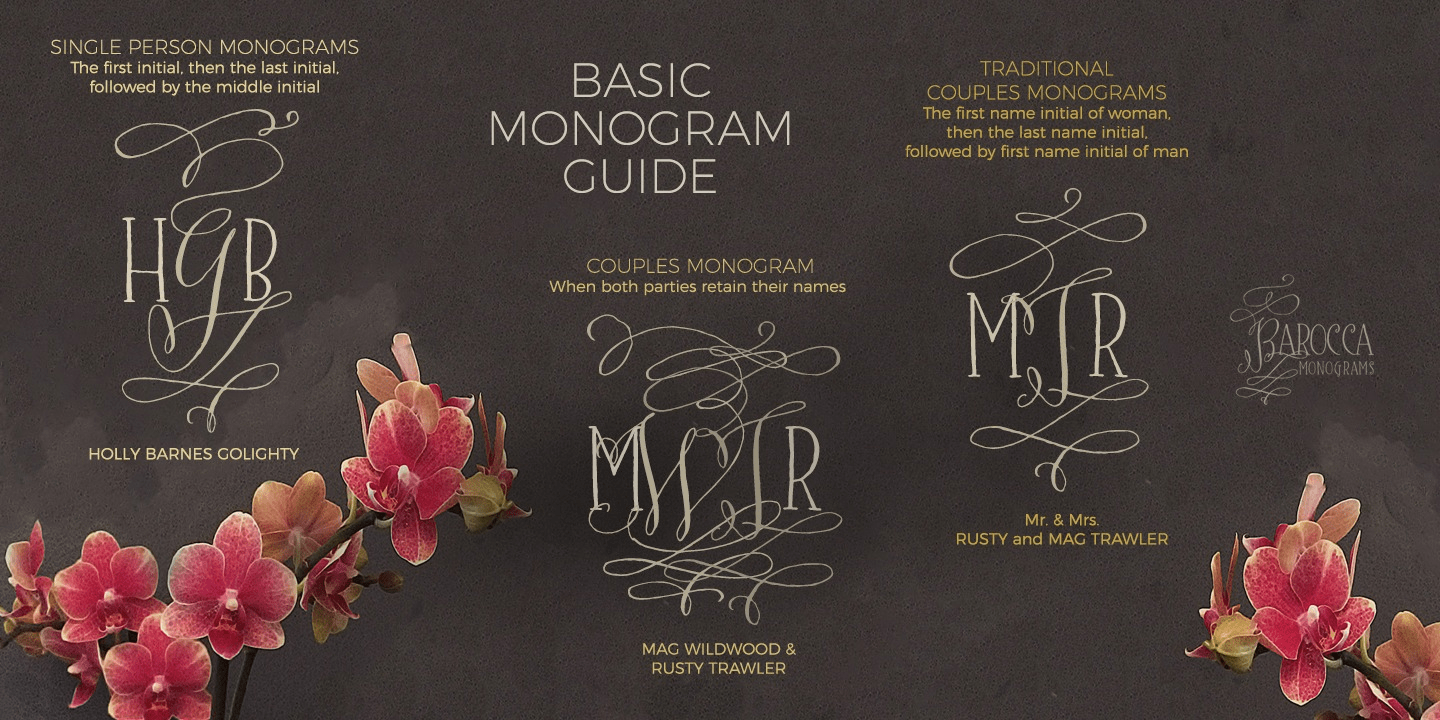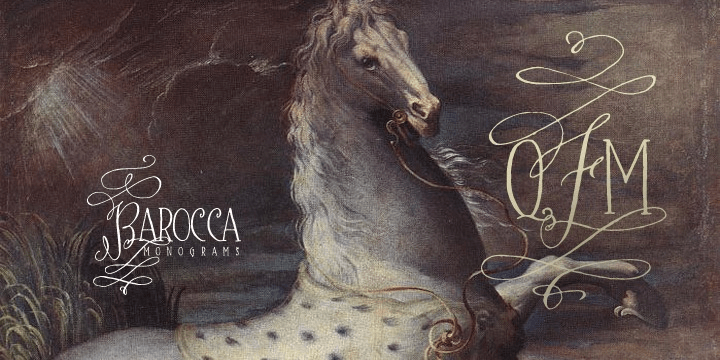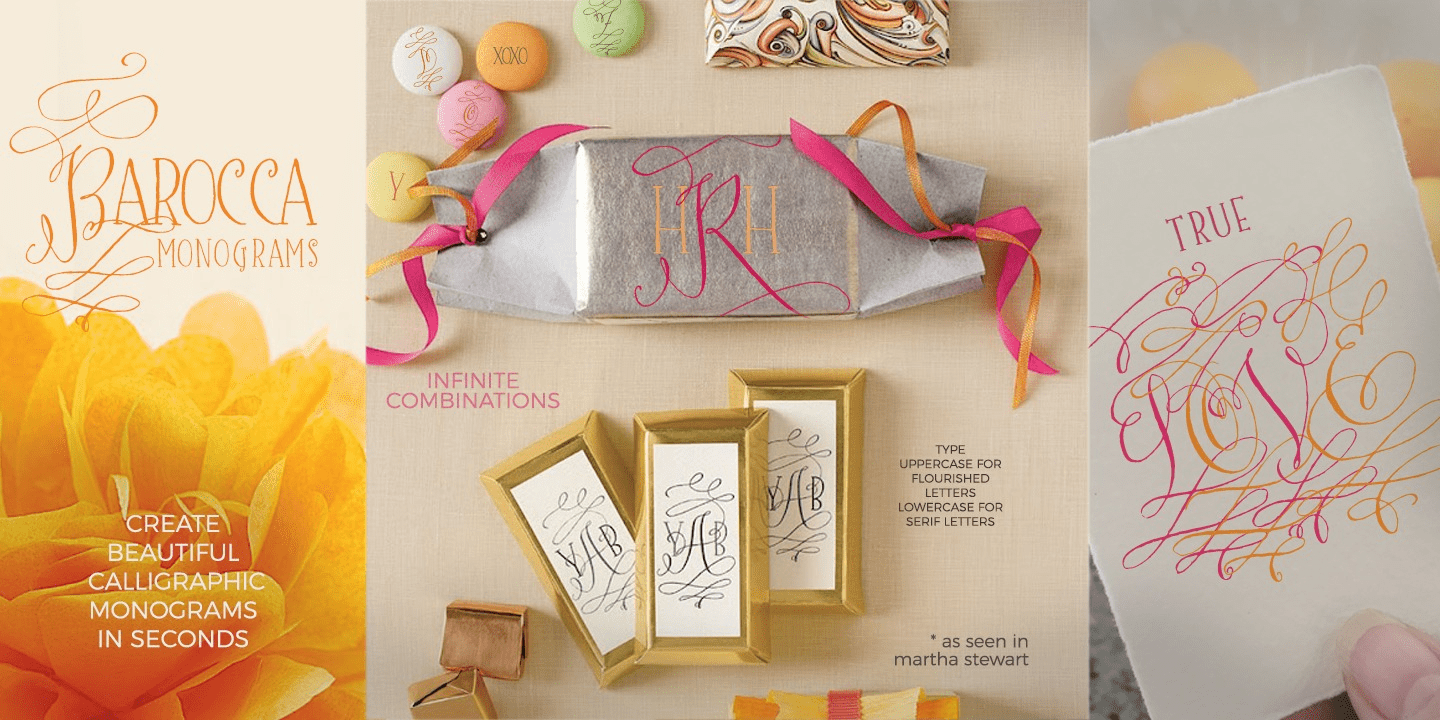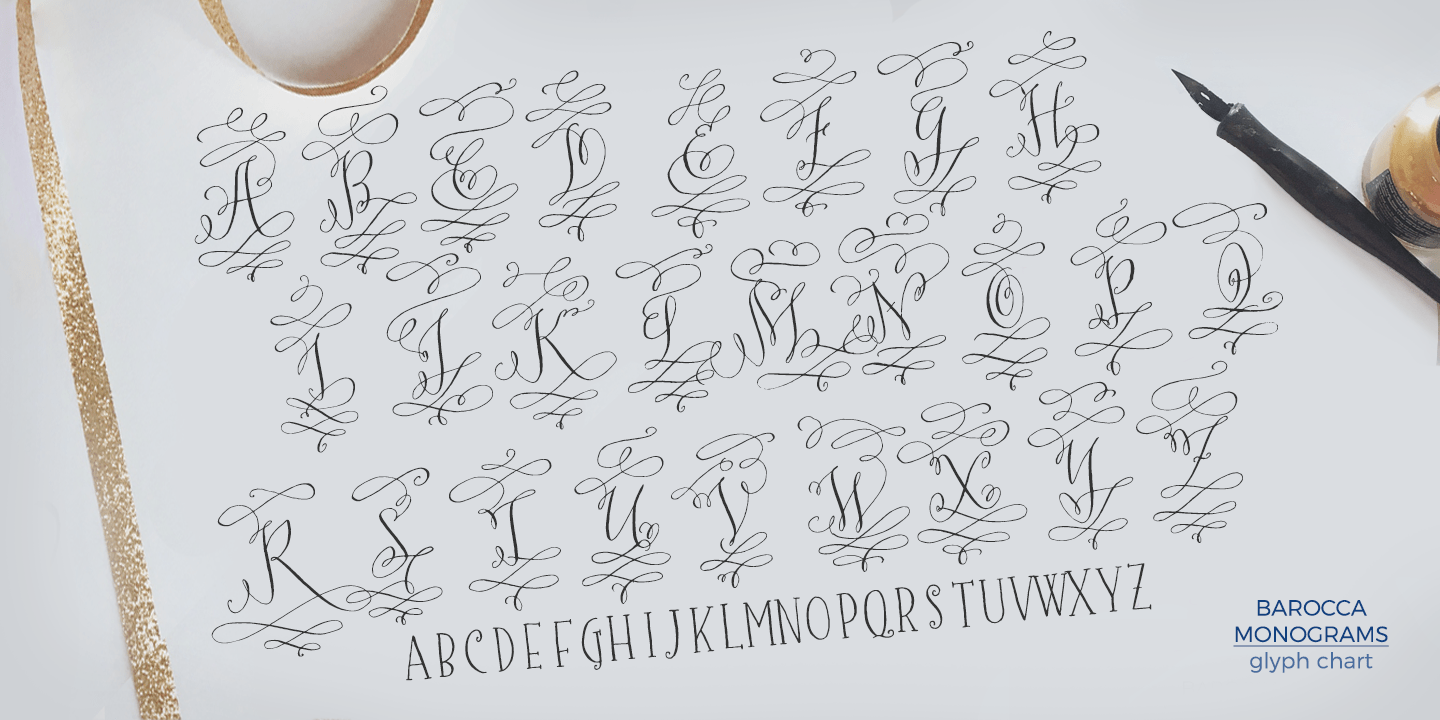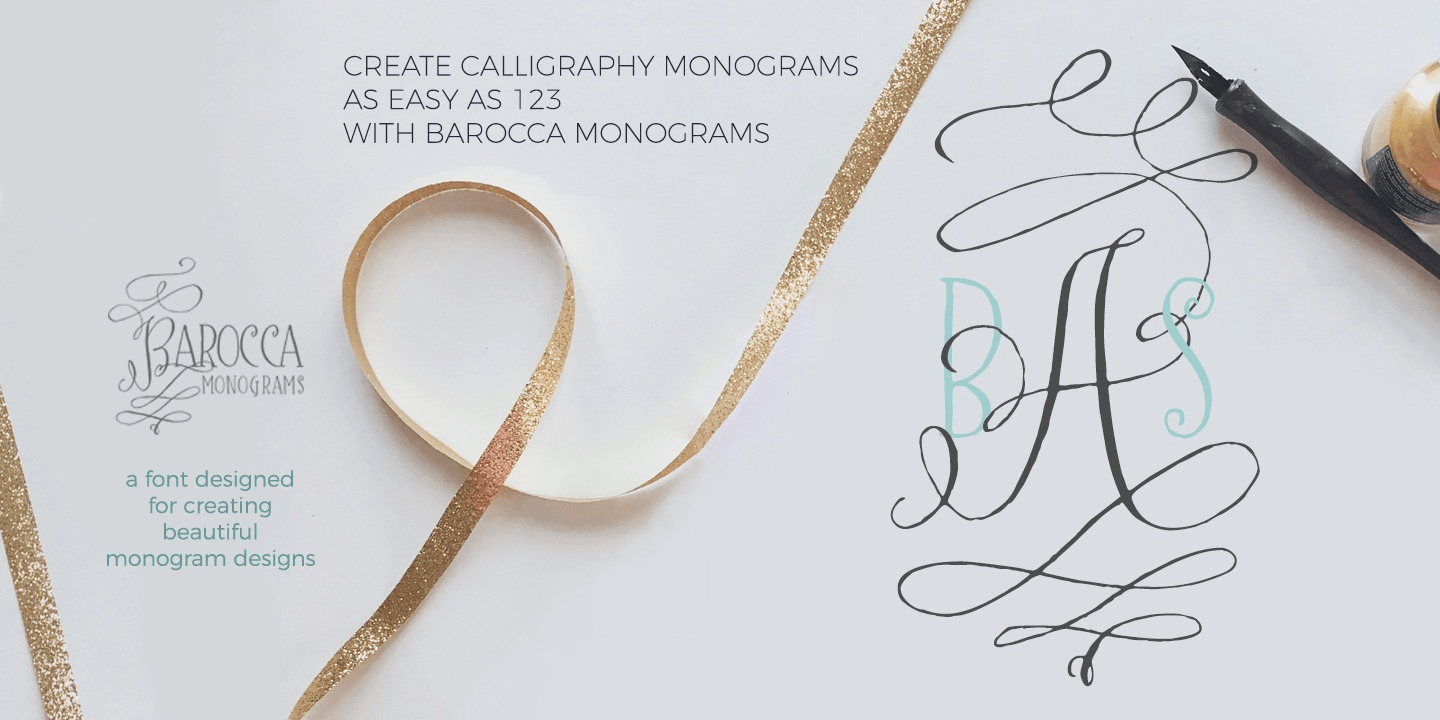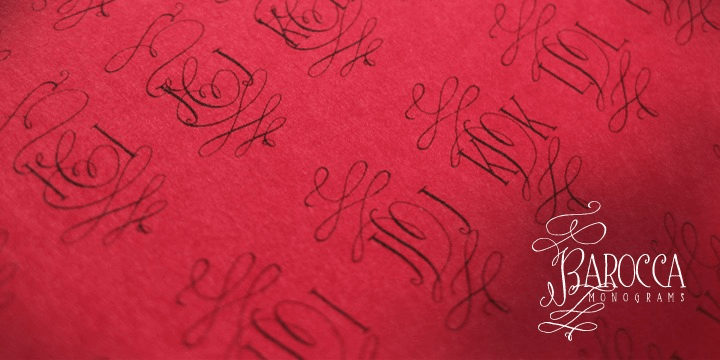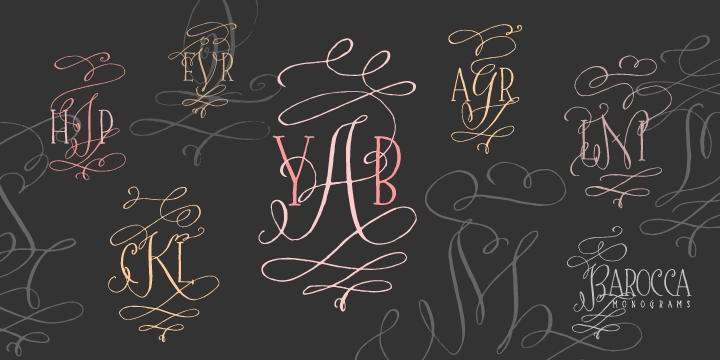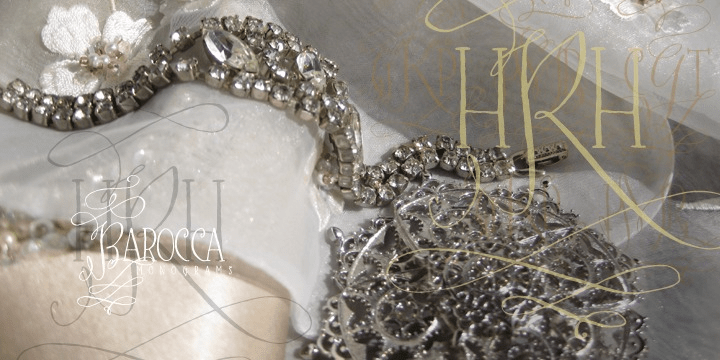
Barocca Monograms
Dramatically intertwining, Barocca is a beautifully romantic monogram font with passionate inclinations. She's a performer who shines in the spotlight. Originating from experiments with highly flourished calligraphic letters using antique French nibs & sepia ink upon rag paper, she developed in a charmingly unique font with impulsively spirited center caps held in check by more disciplined side caps. On stage or off, Barocca sings!